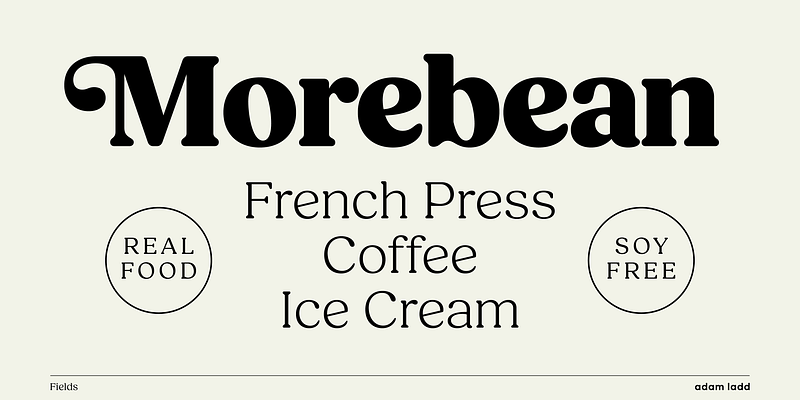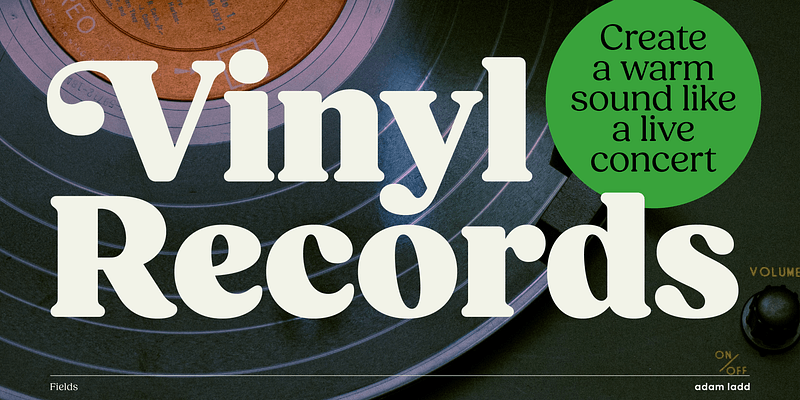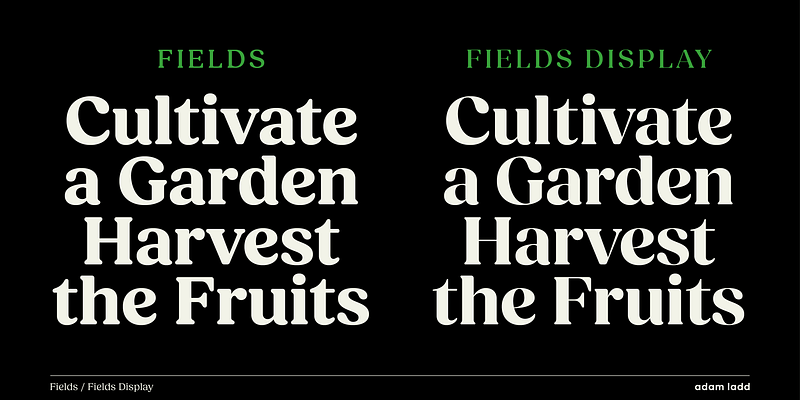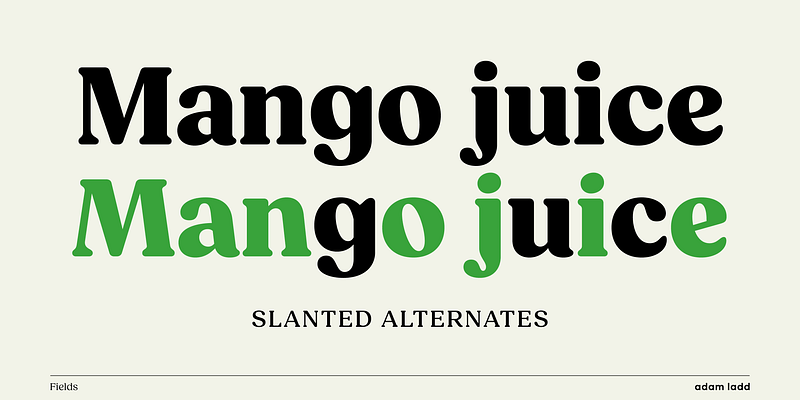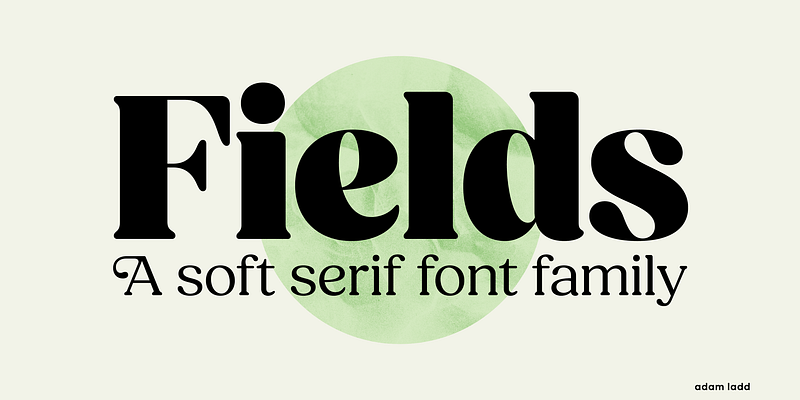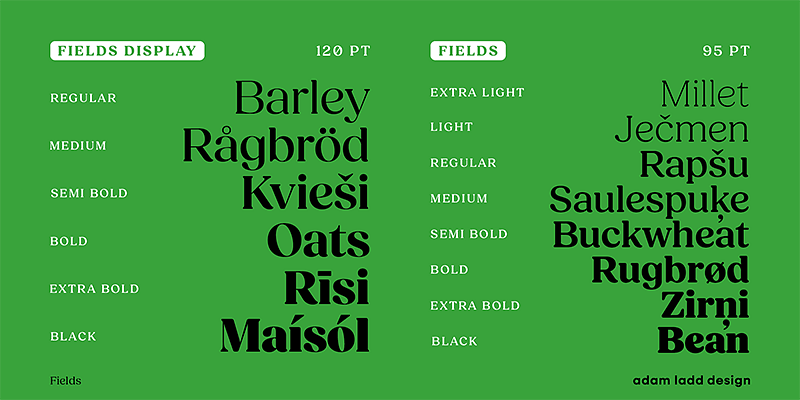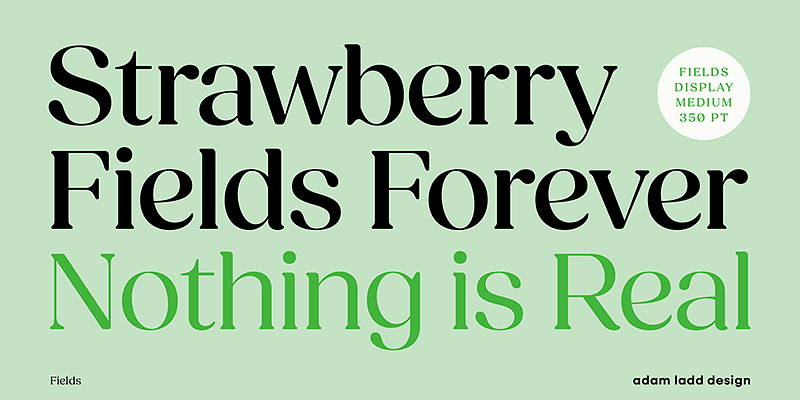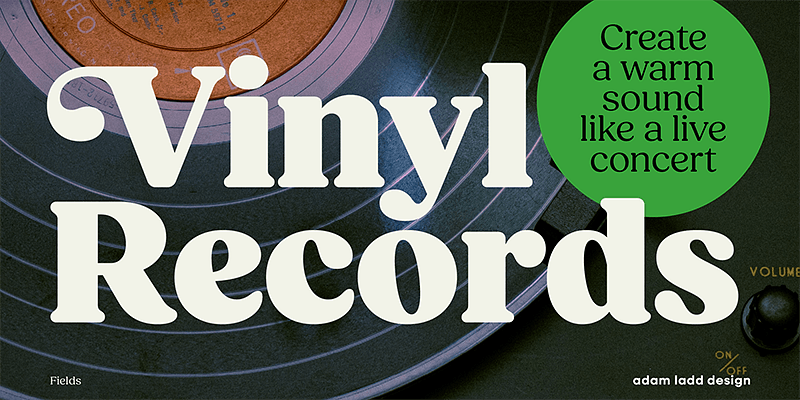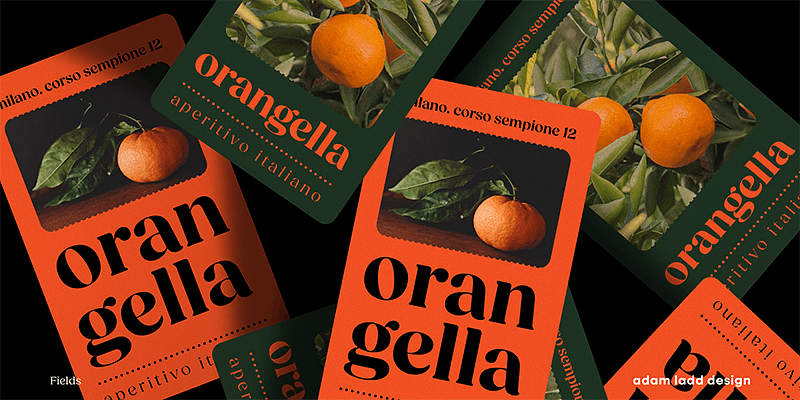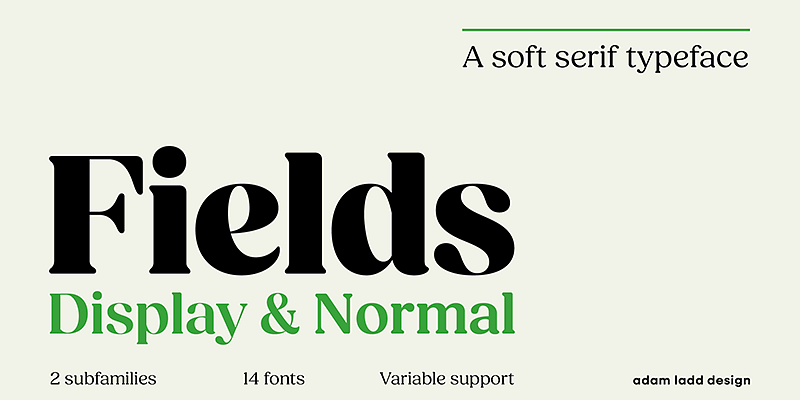
Fields, Fields Display, and now Fields Big are a versatile family with three optical sizes blending casual, retro tones with modern touches. The details like rounded serifs, teardrop terminals, and subtle tails make this typeface friendly and approachable. Fields is excellent for branding! Whether you want that vintage 1970s vinyl record vibe or on-trend packaging with a nod to the handmade. Fields Variable can precisely fine-tune the tone of voice and meet your typographic goals and needs.